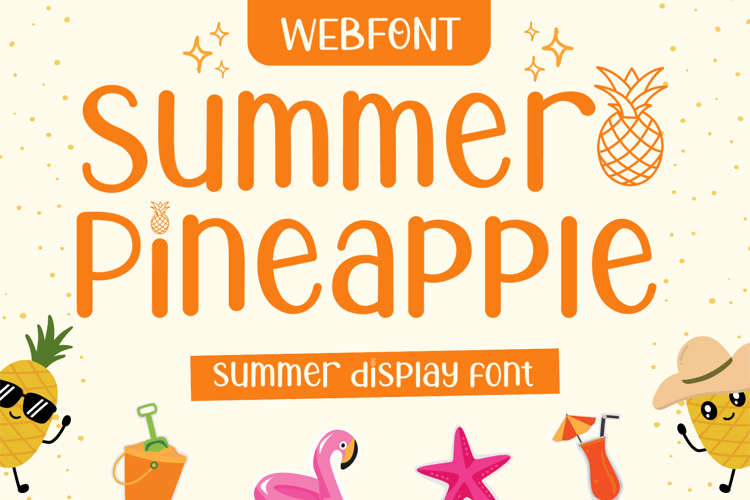
Summer Pineapple
Inspired by tropical fruits, warm sunshine, and relaxing beach moments, Summer Pineapple is a bold display font made to brighten up your creative work. Featuring thick and playful letterforms, this font is designed to create a strong visual impact while keeping a fun and friendly feel.
Summer Pineapple is suitable for a wide variety of projects, including logos, posters, packaging, social media templates, stickers, quotes, invitations, and summer-themed branding. The bold style makes it especially effective for headlines and titles that need to stand out clearly.
From summer sales to tropical event promotions, this font helps create visuals that feel inviting and full of positive energy. It is a great choice for designers, crafters, and content creators looking for a bold font with a relaxed summer feel.
Summer Pineapple Features :
- Ligatures, (a-z) titling, (a-z) swashes